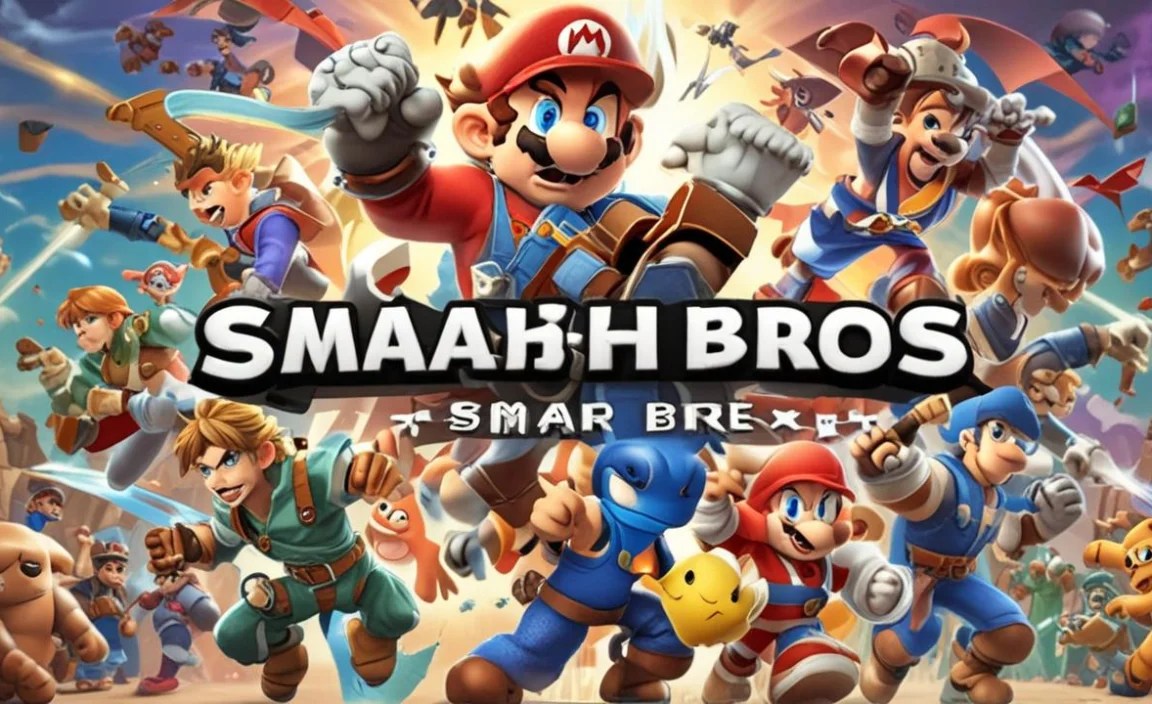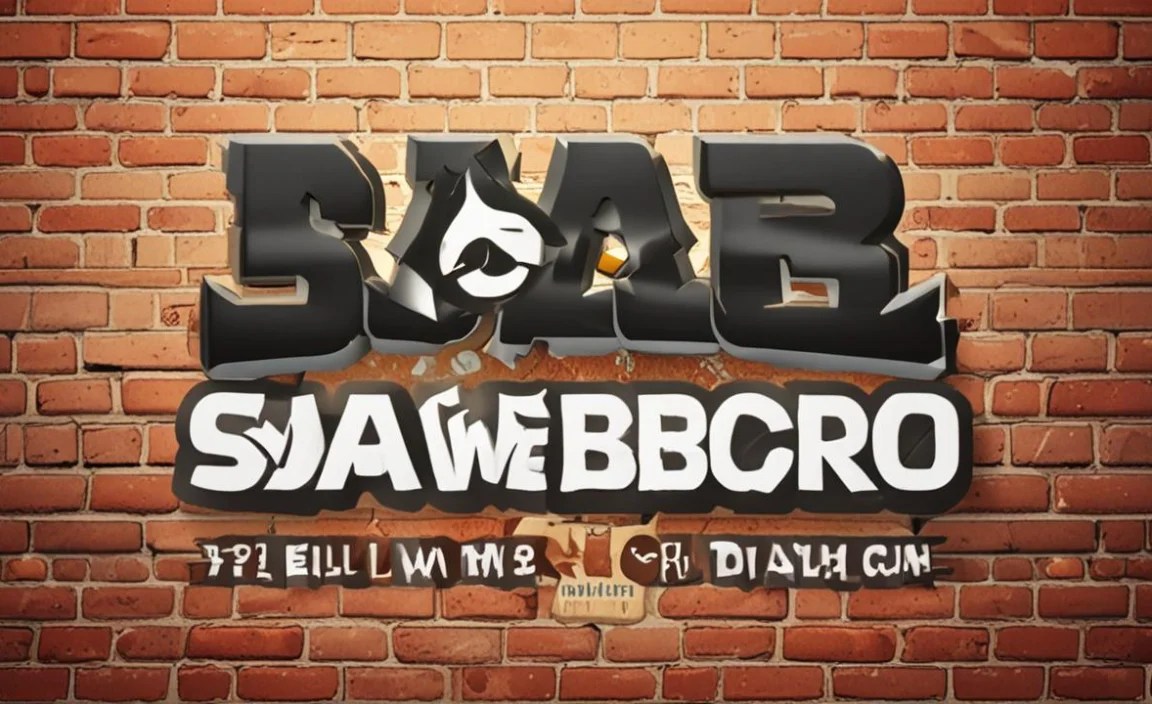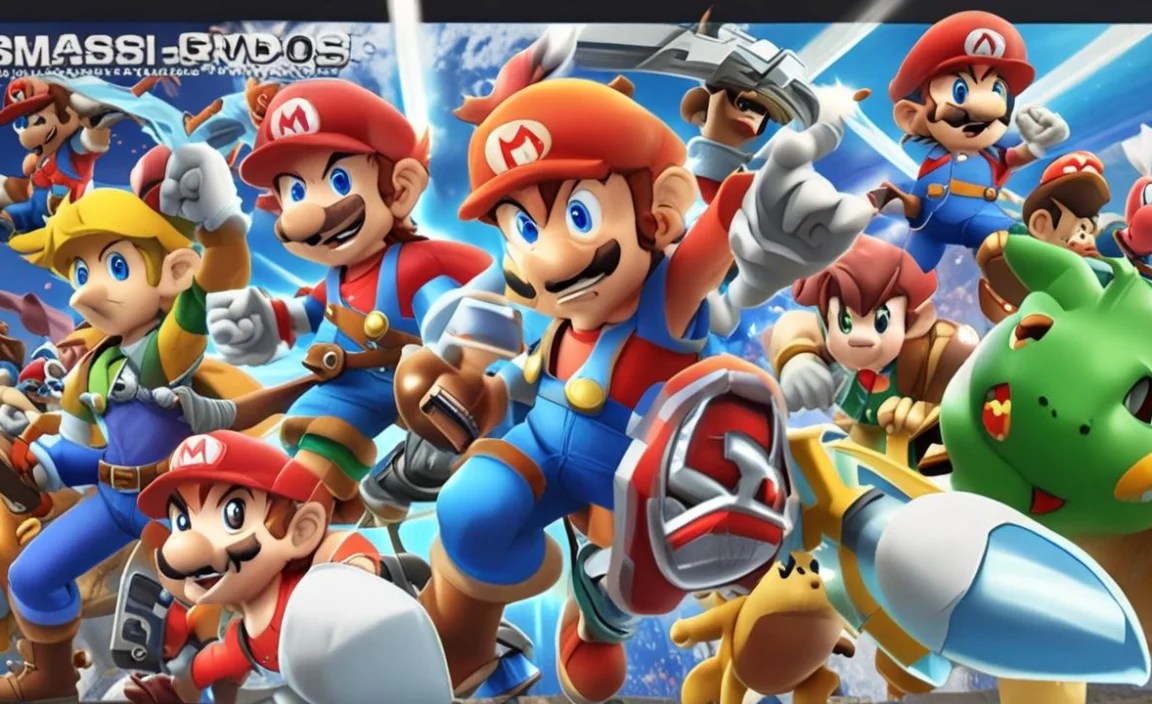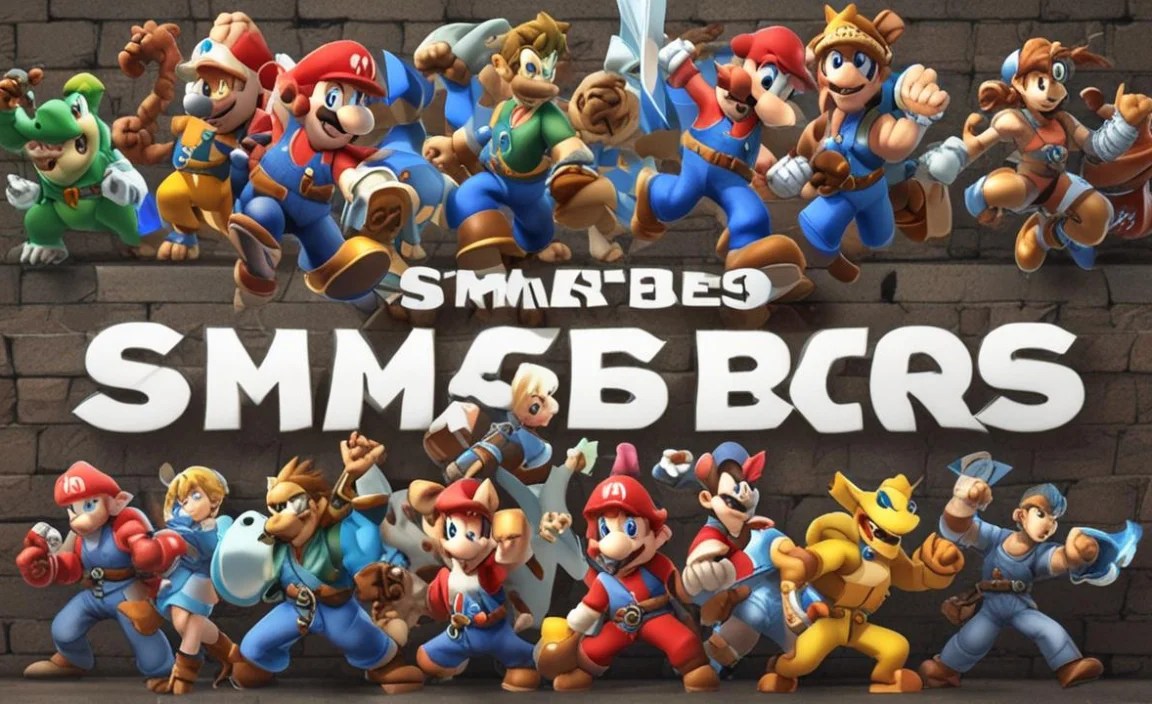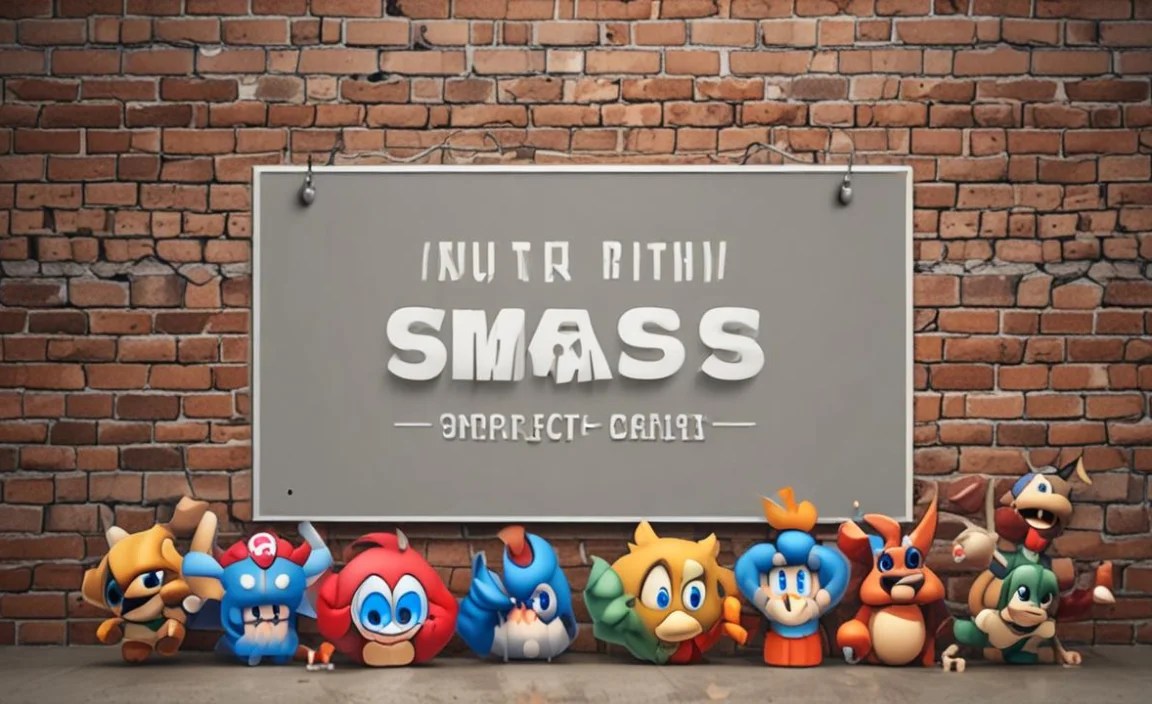
Smash Bros Font is a distinctive sans-serif typeface that became widely recognized due to its association with the popular “Super Smash Bros” video game series.
Originally inspired by a combination of the Kabel Bold and Super Mario fonts, this typeface has carved out a unique niche in the world of design. Known for its bold and impactful design, Smash Bros Font is celebrated for its ability to capture attention and create a strong visual presence.
The font family includes a single regular style, featuring a full set of characters, glyphs, digits, and punctuation marks. Available in both OTF and TTF formats, it offers versatility and ease of use across different platforms. This font is a top choice for designers looking for a professional yet eye-catching typeface. With its bold and extended design, it is ideal for creating striking headlines and display text.
Smash Bros Font excels in creating memorable headlines, website headers, marketing materials, and branding. Its bold, modern style, coupled with its unique geometric shapes, makes it perfect for a variety of design and promotional needs.
This font is prominently found in video game branding, promotional materials, and fan art. Its bold, geometric forms create a commanding presence that effortlessly captures attention. The font’s versatility is showcased in its wide usage across different applications, from dynamic advertising campaigns and sleek website designs to eye-catching merchandise and contemporary product packaging.
Smash Bros Font shines in various design contexts due to its bold and impactful characteristics. The font works exceptionally well in both digital interfaces and print media, making it a versatile choice for designers. With its stylish, easy-to-read design, it integrates smoothly into various design workflows, enhancing the visual appeal of any project.
2.What Is The Origin Of The Smash Bros. Font?
The “Hoefler Text” typeface, designed by Jonathan Hoefler in the 1990s, heavily influences the Smash Bros. font. Nintendo modified and customized this font for the branding and logos of the Super Smash Bros. series.
4.What Font Does Smash Bros. Use?
The font used in Super Smash Bros. is a customized version of Hoefler Text. While not exactly the same as the commercial typeface, it retains many of the elegant and bold features of the original font.
5.What Is The Meaning Of The Smash Bros. Logo?
The Super Smash Bros. logo features a simple cross or plus sign within a circle, representing a “crosshair” or target. The design also resembles the four quadrants of the screen in the multiplayer mode, emphasizing the game’s focus on player-versus-player combat.